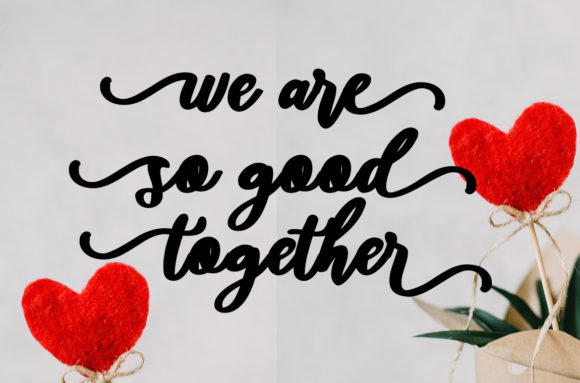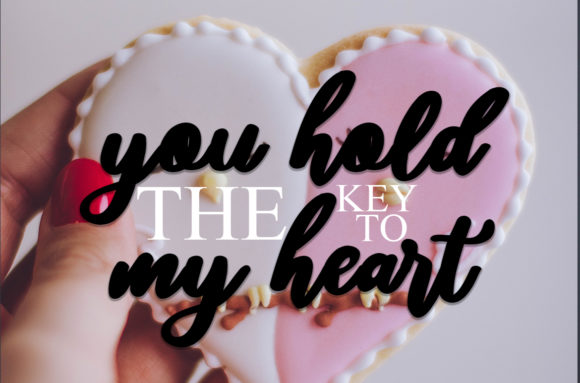
The Moment of Truth: When Fonts Can Make or Break a Design
I still remember the time I was working on a whimsical wedding invitation design. The client wanted something elegant yet playful, and I was determined to deliver. But, as I scrolled through my font library, I found myself stuck. The usual suspects just didn’t cut it – they were either too formal or too quirky. That’s when I stumbled upon **Daylight Font**. With its charming, handwritten flair, it was love at first sight! ✨
An Honest Review of Daylight Font
- ✅ Playful yet elegant: Daylight Font strikes the perfect balance between whimsy and sophistication.
- ✅ Dynamic feel: The font’s varying line widths and fluid strokes give it a lively, hand-crafted feel.
- ✅ Highly versatile: Use it for everything from wedding invites to branding, packaging, and more.
- ✅ Easy on the eyes: The font’s clear and legible, making it perfect for both headings and body text.
While Daylight Font is an amazing addition to any design project, there are a few things to keep in mind: 🤔
- ⚠️ Limited use in very small sizes: While the font is generally clear, it can get a bit blurry when used in very small sizes (e.g., below 10pt).
- ⚠️ Not ideal for long blocks of text: While it’s legible, Daylight Font’s playful nature makes it better suited for headings, titles, and short paragraphs.
- Experiment with OpenType features like ligatures and stylistic alternates to add more flair to your text.
While the true origins of Daylight Font remain a mystery, it’s easy to imagine a designer inspired by sunny days and warm conversations. Perhaps they wanted to bottle up the feeling of a carefree afternoon and put it into a font. 💫
Q: What makes Daylight Font unique?
A: Daylight Font’s unique blend of playfulness and elegance, combined with its dynamic feel, sets it apart from other fonts.
Q: Does Daylight Font support OpenType features?
A: Yes, Daylight Font supports OpenType features like ligatures and stylistic alternates, allowing you to add more flair to your designs.
Q: Can I use Daylight Font for body text?
A: While Daylight Font is legible, it’s best suited for headings, titles, and short paragraphs. For long blocks of text, consider a more traditional font.